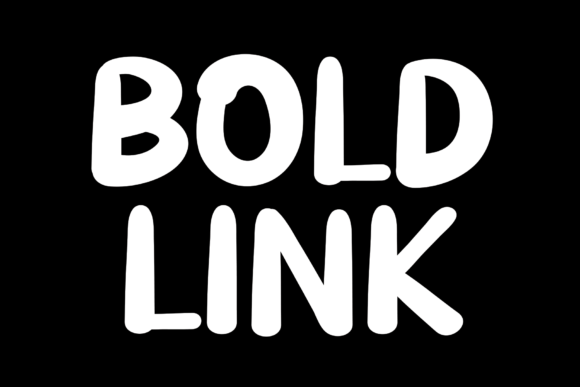
The Font that Stole My Heart: A Deep Dive into Bold Link
I’ll never forget the design project that led me to Bold Link. I was working on a branding campaign for a trendy new coffee shop, and I was struggling to find the perfect font to capture their playful, yet sophisticated vibe. That’s when I stumbled upon Bold Link, a cool and casual handwritten display font that instantly won me over. In this article, I’ll share my love affair with Bold Link, its features, and how to make the most of it in your creative projects.
So, what makes Bold Link so special? Here are a few things that I absolutely adore:
- ✨ Unique character: Bold Link has a distinct, hand-crafted feel that sets it apart from other fonts.
- ✅ Versatility: It works beautifully for both digital and print projects, from social media graphics to posters and flyers.
- 💥 Attention-grabbing: The bold, chunky letters demand attention and make your text stand out.
Of course, no font is perfect, and Bold Link has a few minor quirks:
- 🤔 Limited use in body text: Due to its bold nature, Bold Link works best as a display font or for short paragraphs.
- ⚠️ Glyph limitations: While it has a range of OpenType features, some users might find the glyph selection a bit limited.
The Story Behind Bold Link: Designer Inspiration
While the true story behind Bold Link’s creation remains a mystery, it’s easy to imagine a designer with a passion for handwriting and typography crafting this font. Perhaps they wanted to create a font that would add a touch of personality to digital and print projects. Whatever the inspiration, Bold Link has undoubtedly become a favorite among designers and crafters.
Q: What type of projects is Bold Link best suited for?
A: Bold Link excels in projects that require a bold, eye-catching font, such as posters, flyers, social media graphics, and branding campaigns.
Q: Can I use Bold Link for body text?
A: While possible, Bold Link works best as a display font or for short paragraphs due to its bold nature.
Q: Does Bold Link have OpenType features?
A: Yes, Bold Link includes a range of OpenType features, such as ligatures and stylistic alternates, which can add visual interest to your text.
Q: Is Bold Link suitable for digital use?
A: Absolutely! Bold Link is designed to work beautifully in both digital and print projects.